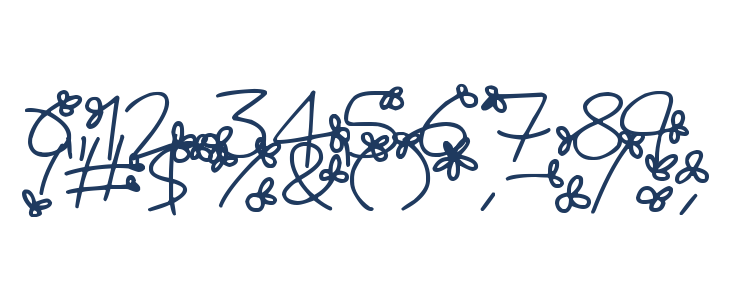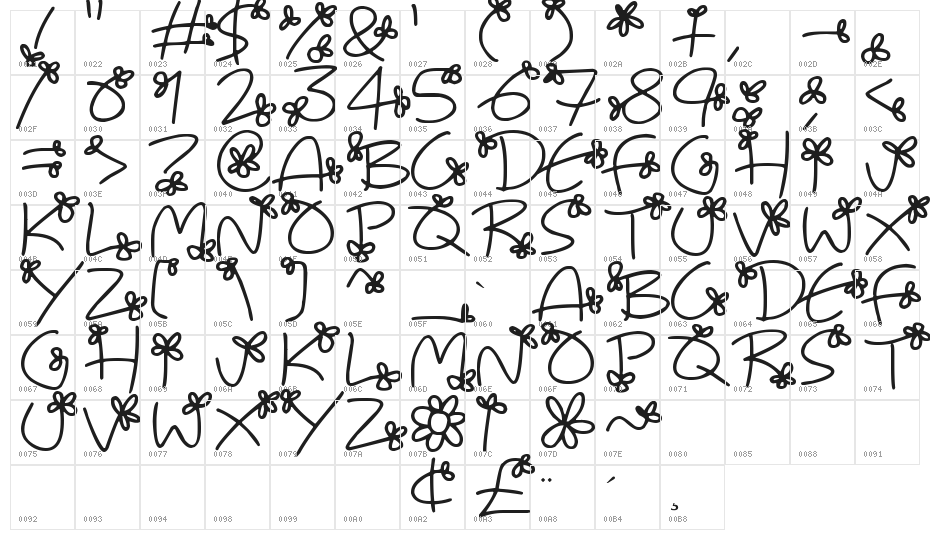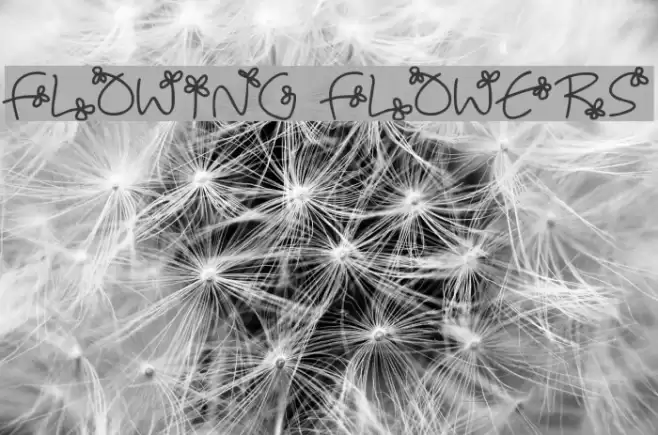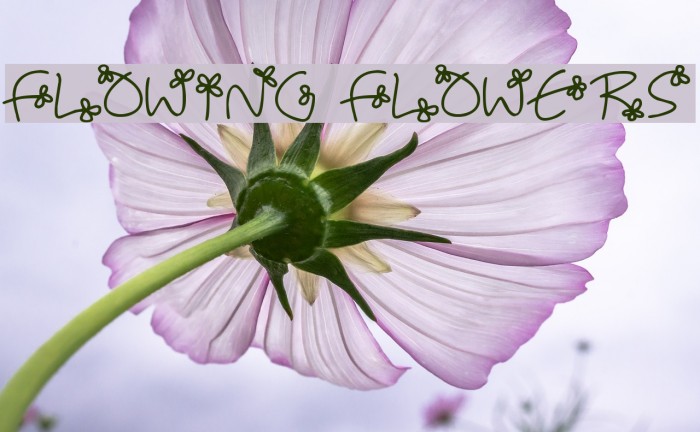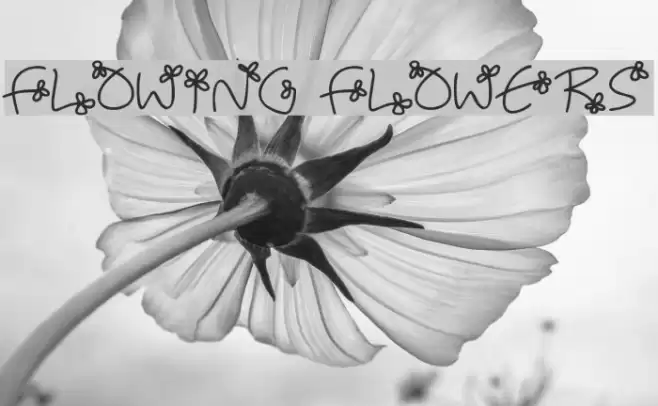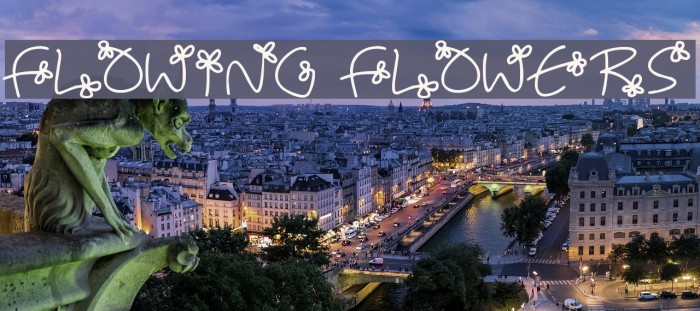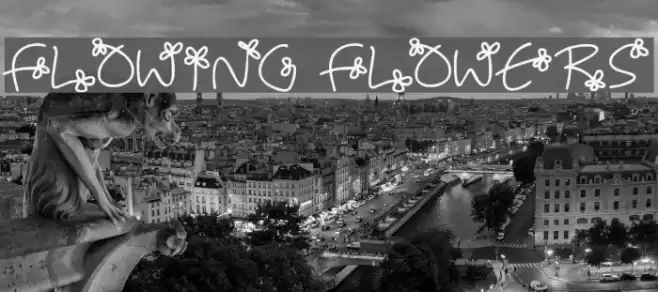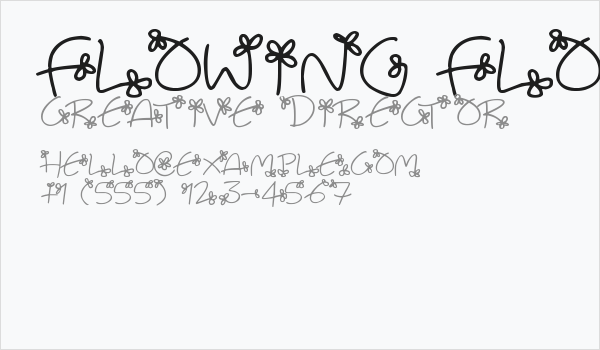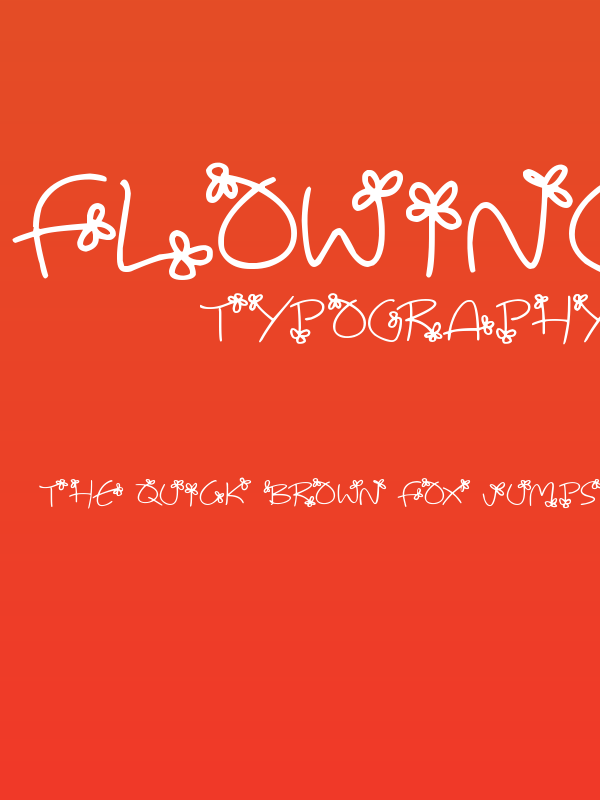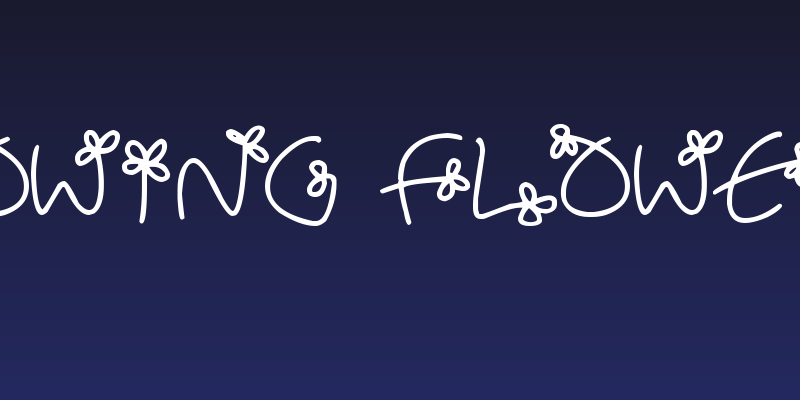
Flowing Flowers Font
Flowing Flowers Description
This whimsical and decorative font features playful floral embellishments integrated into each character, creating a lively and cheerful appearance. The letters are crafted with a casual, handwritten style, where each character is adorned with small flower motifs, adding a unique and artistic touch. The font maintains a consistent flow, with smooth curves and rounded edges that contribute to its friendly and approachable feel. The overall design is light-hearted and imaginative, making it ideal for projects that require a touch of creativity and fun.
| Proposed Projects | Perfect for greeting cards, children's book covers, playful branding, and creative invitations. |